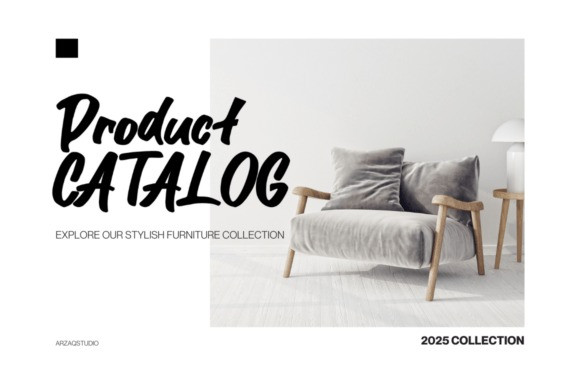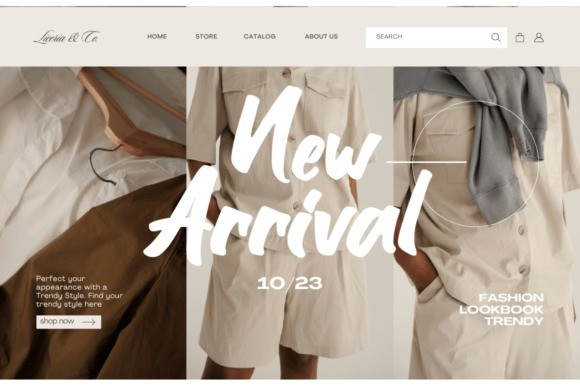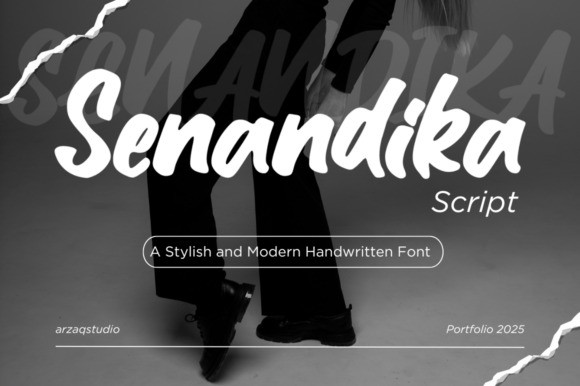
Senandika Script Font
Senandika Script Font is a stylish and modern handwritten font with a natural flow and bold brush strokes. Perfect for branding, invitations, quotes, logos, social media posts, and more. This script typeface brings an authentic, dynamic, and eye-catching touch to your creative projects.
Whether you’re designing posters, packaging, or digital artwork, Senandika Script adds a personal and unique charm that makes your design stand out.